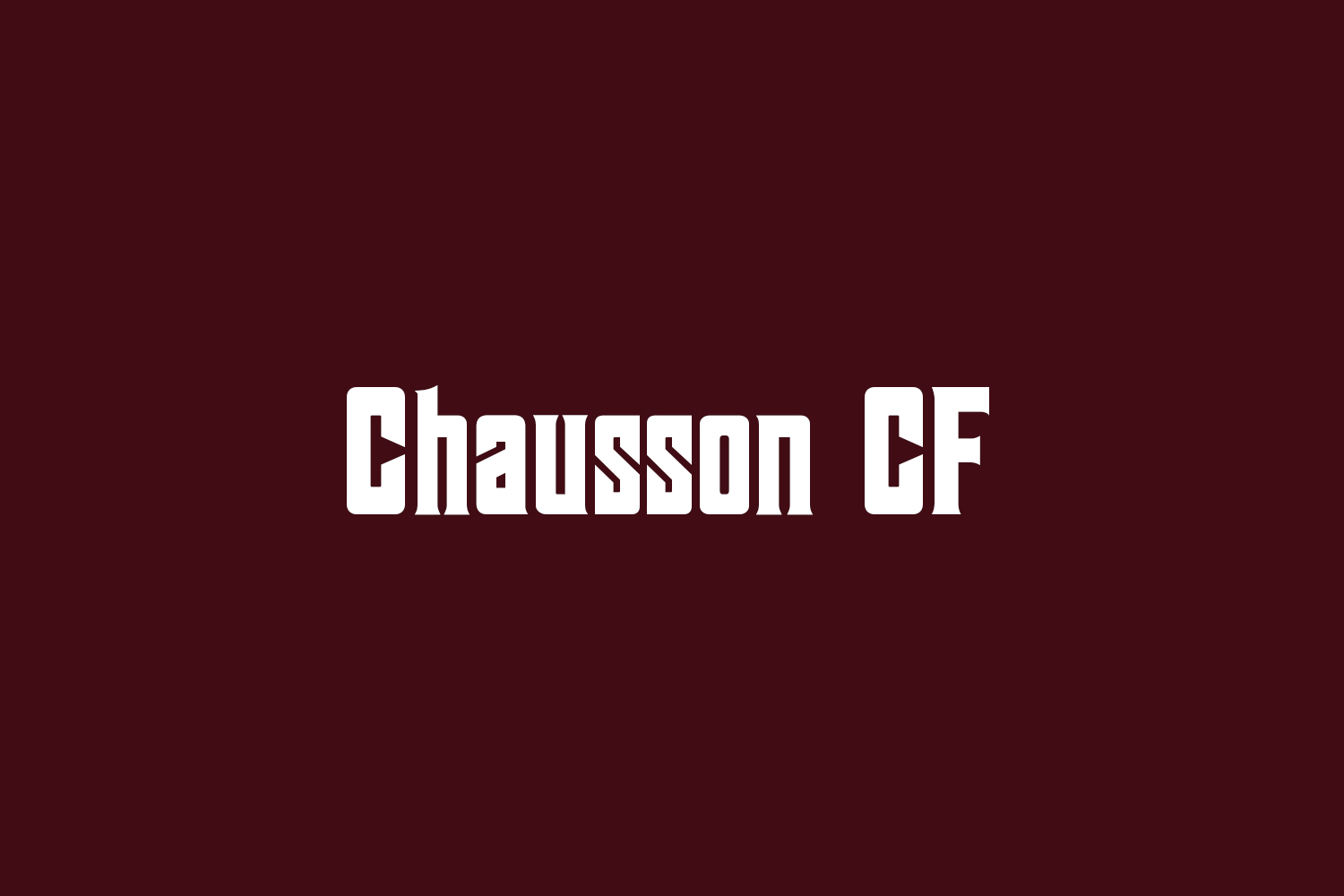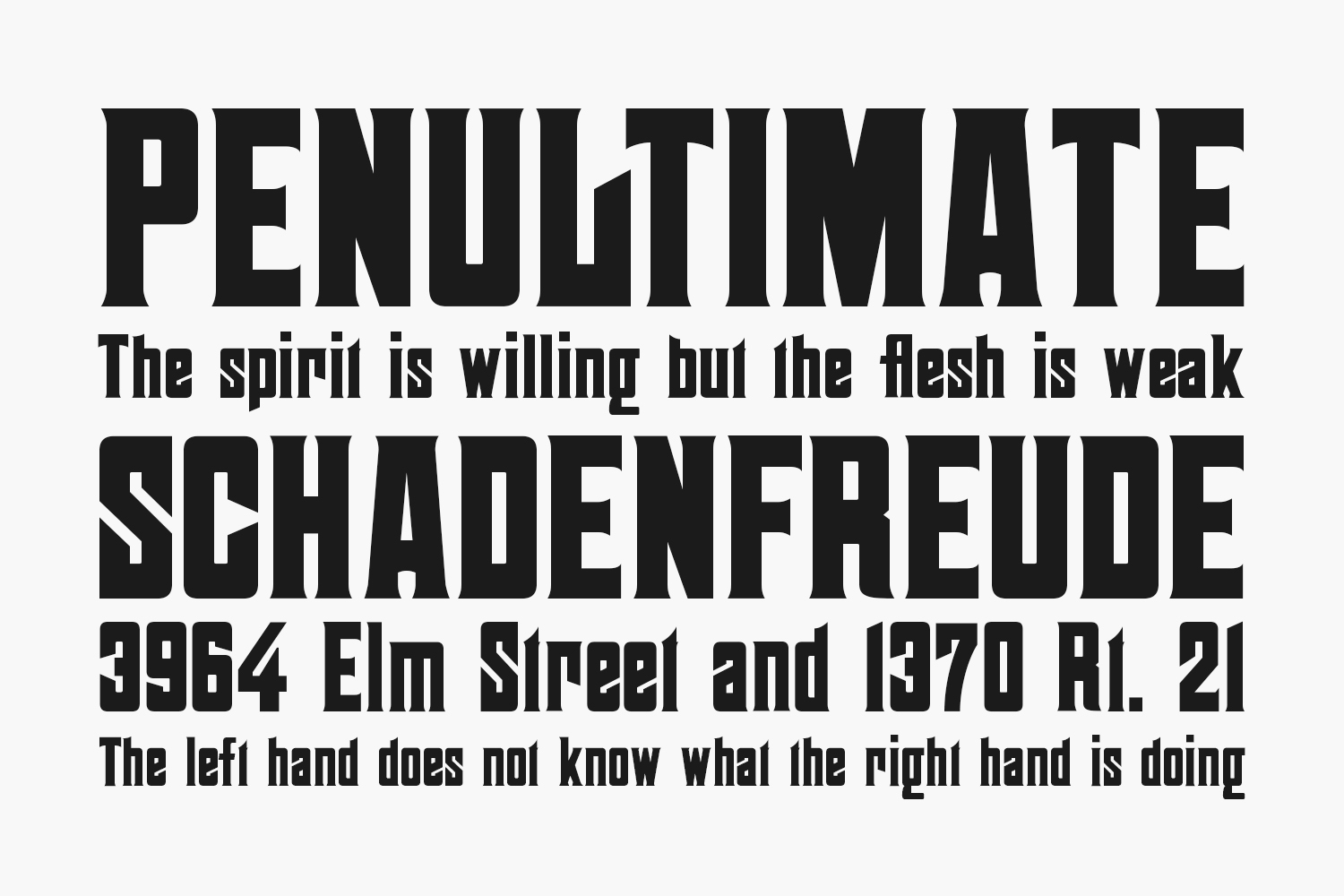
Chausson CF Free Font is my revival, completely redrawn, of Othello, a typeface I found in Popular Designs for Artistic Printers (Central Type Foundry, St. Louis, 1892). Although the hype on the bottom of the sample page for Othello reads, “Original Design of the Central Type Foundry,” it appears to me to be a metal remake of an earlier wood type design in Alphawood, page 95. It is a strong and bold font suitable for poster, advertising, logo, headline, signage, greeting card design, and the like. I followed Central’s example and placed swashes on several more glyphs as alternates.
I named Chausson CF after the 19th-century French composer, Ernest Chausson (1855-1899).